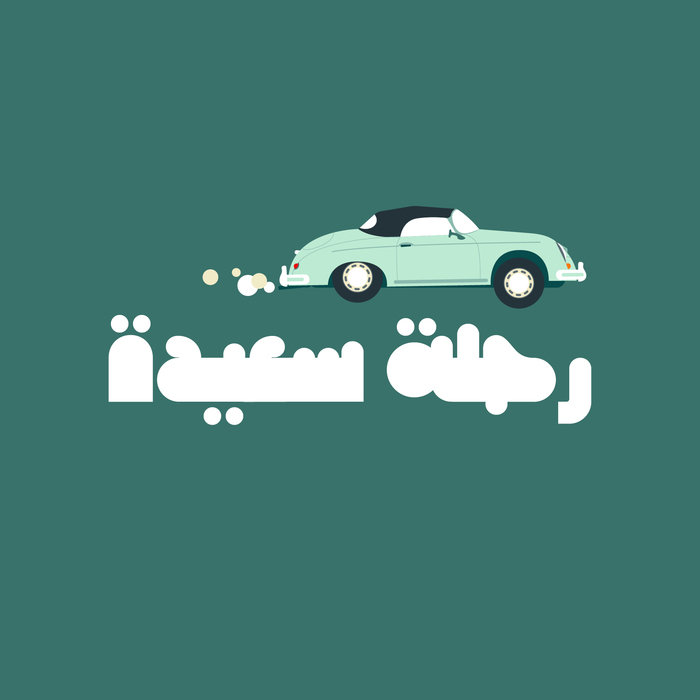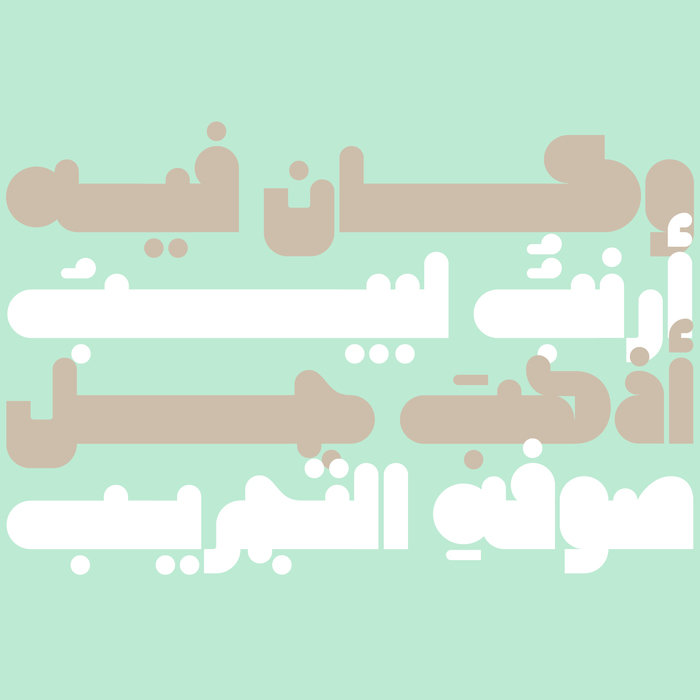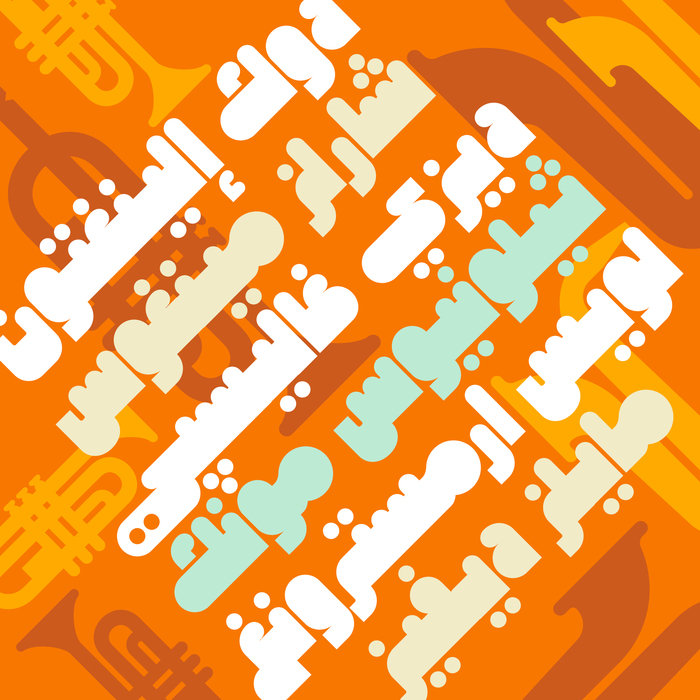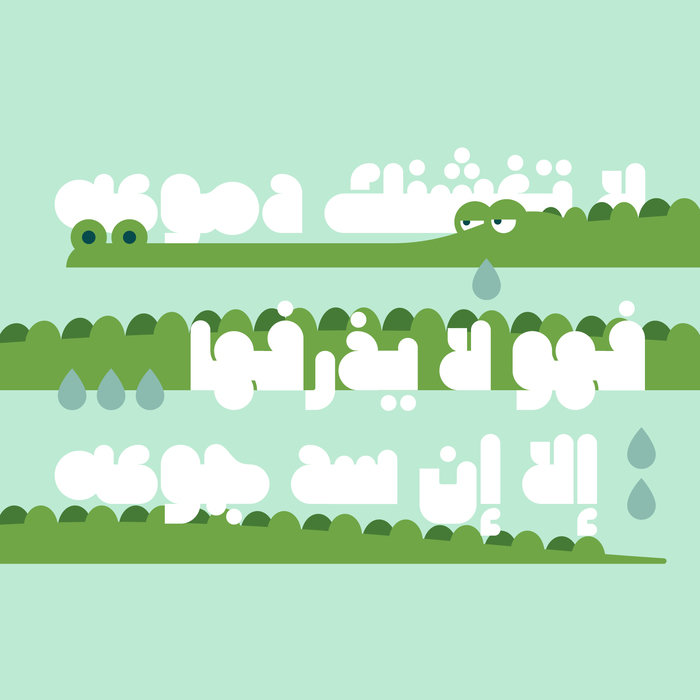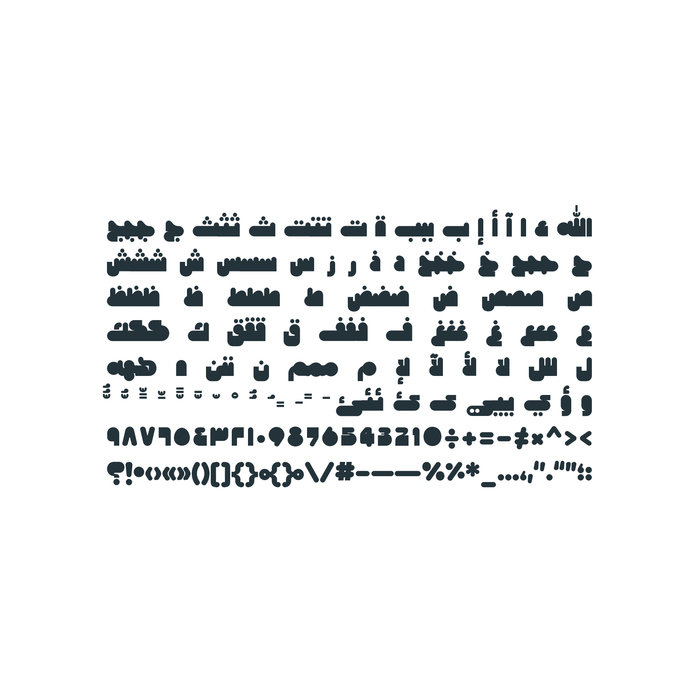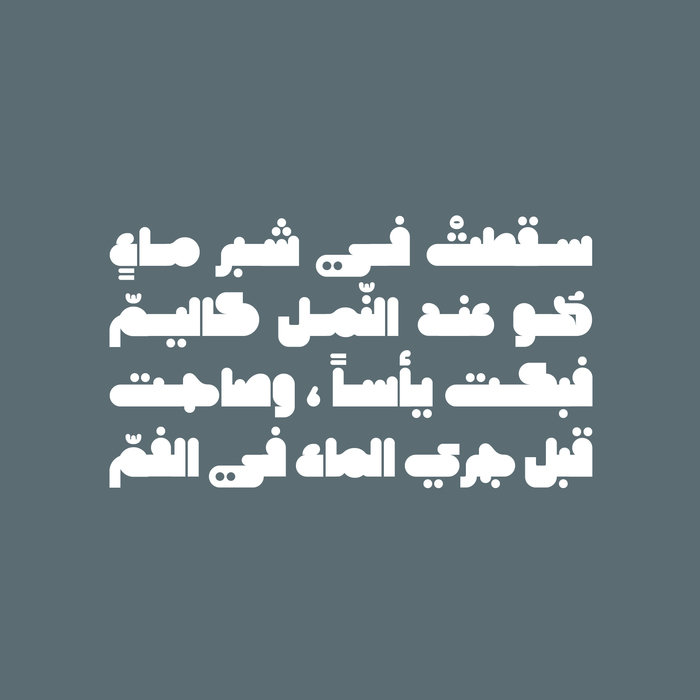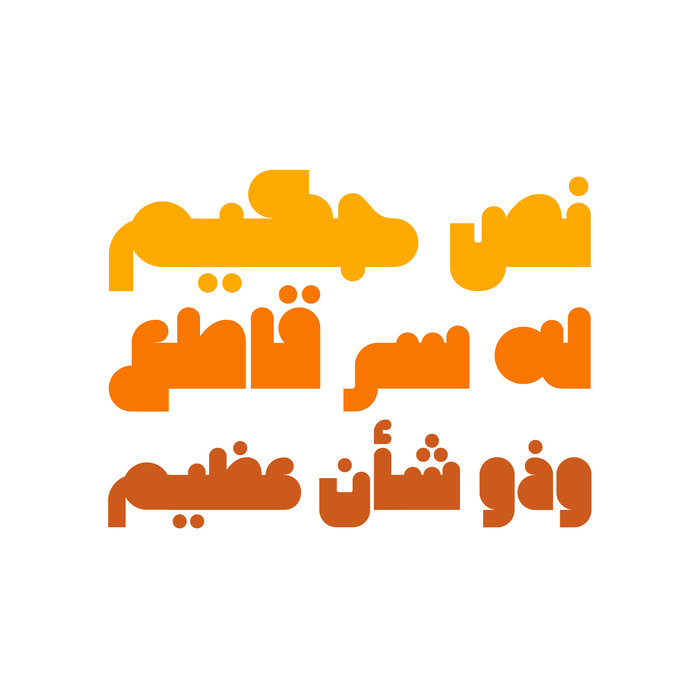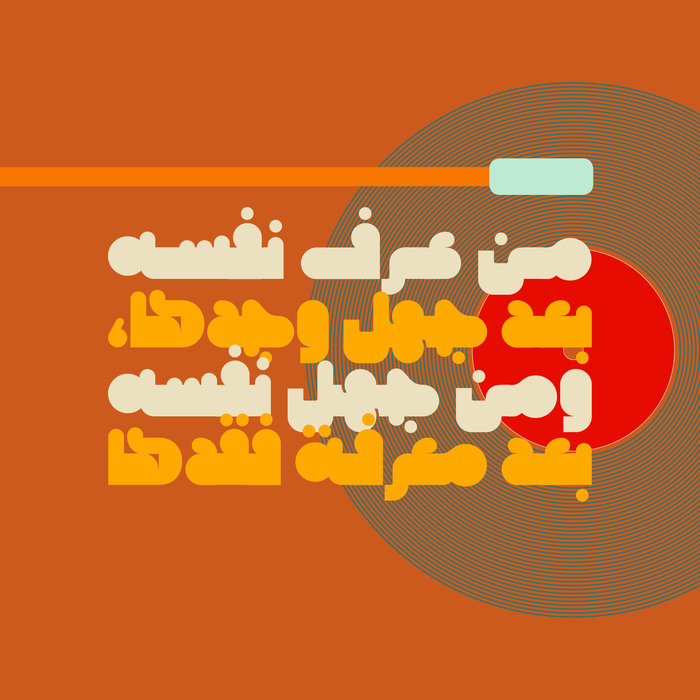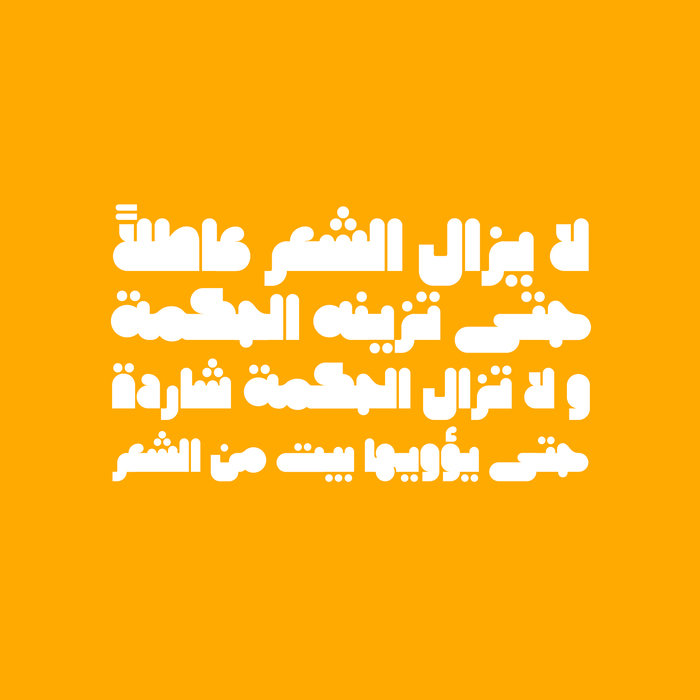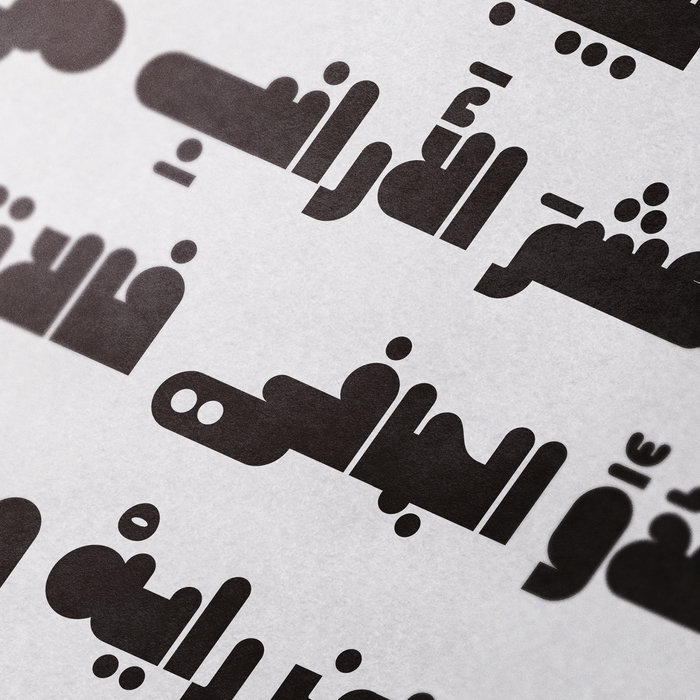
Hawadeet - Arabic Font
Hawadeet (which is the Arabic slang word for Fairy Tales) is an Arabic display font that features a heavy letterform structure with smooth rounded terminals. This distinctive styling makes the font suitable for creative titles, publication design, typography projects and branding. Hawadeet works well for web, print and mobile applications. It supports both Mac and Windows.